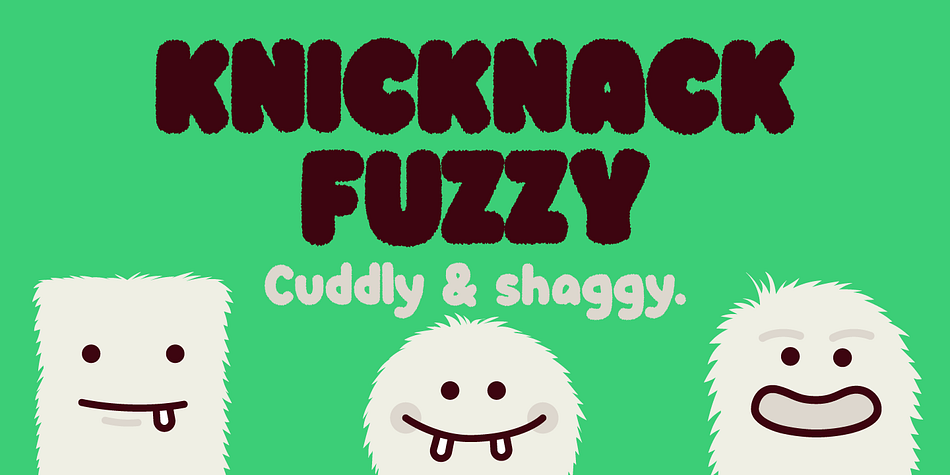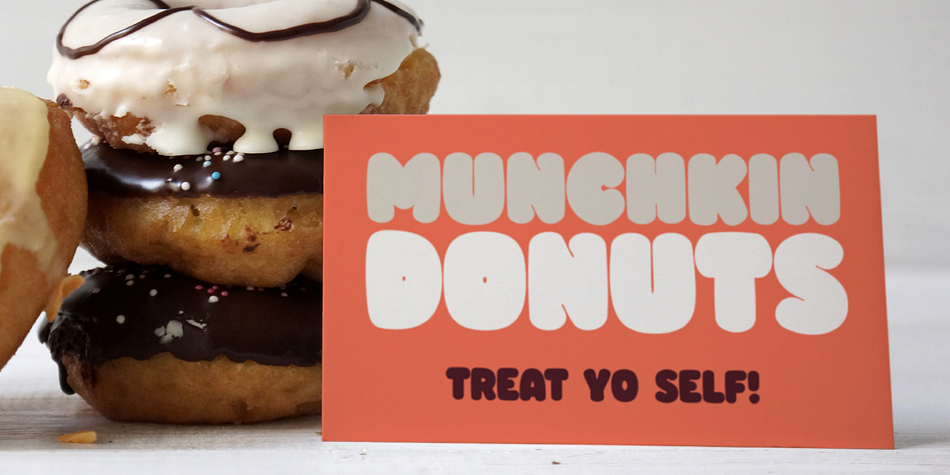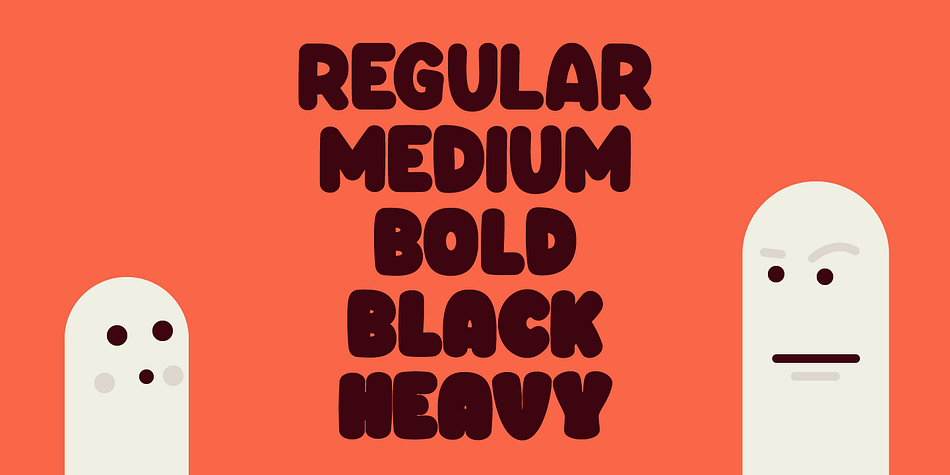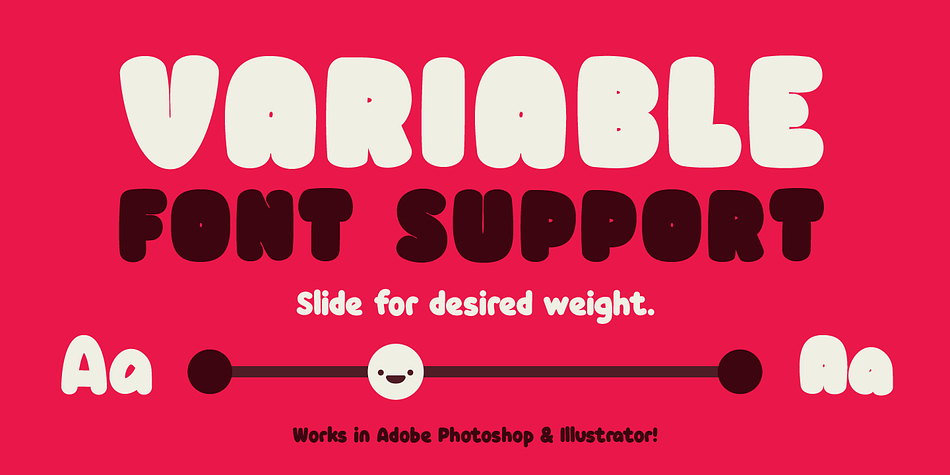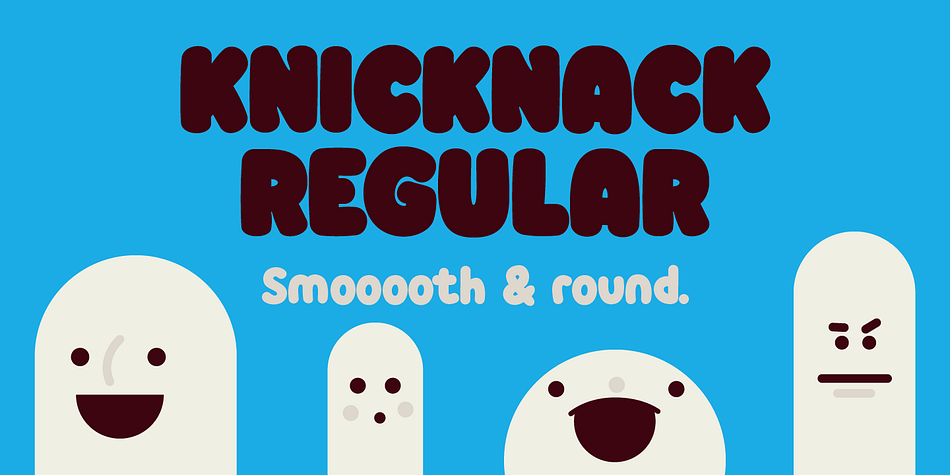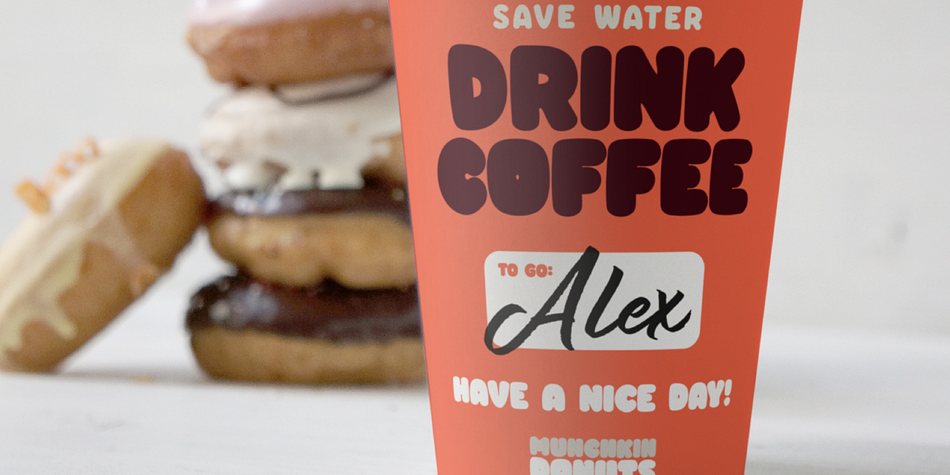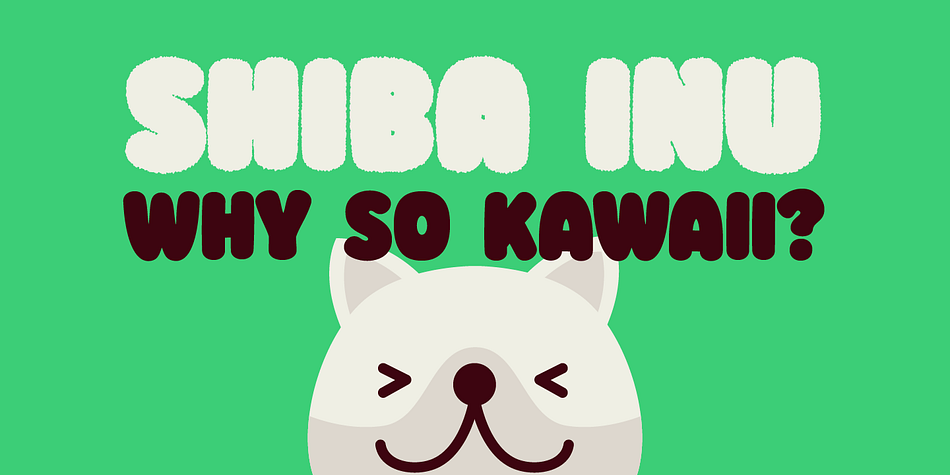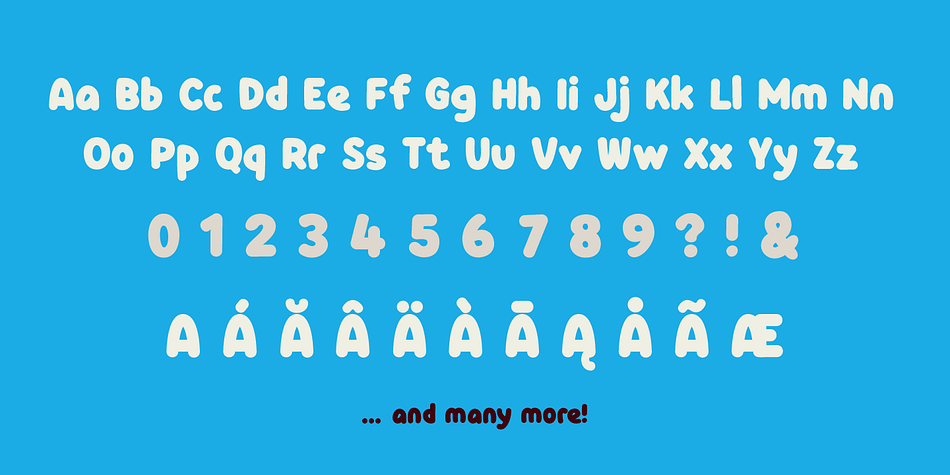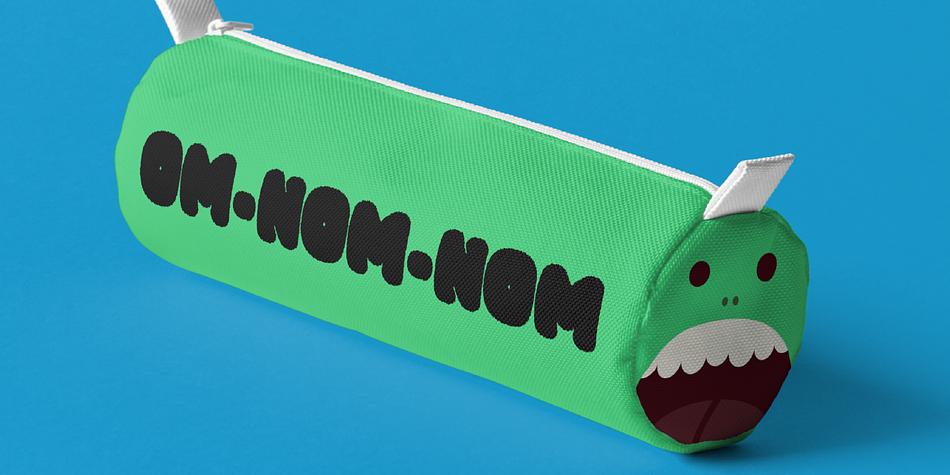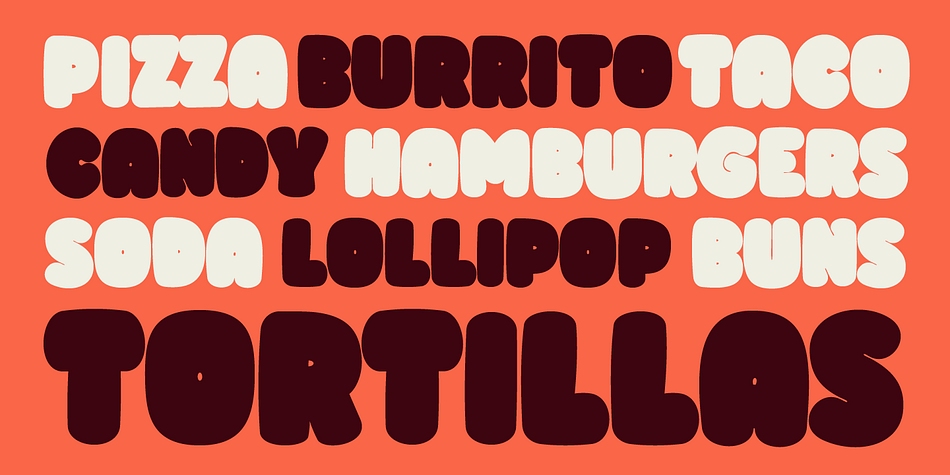
Designed by Daniel Feldt, Knicknack is a display sans font family. This typeface has eleven styles and was published by Great Scott.
It’s here! Lumbering down the grassy slope towards us, the lovable round sans serif of Knicknack. It’s warm, it’s smooth, it’s round and it’s fuzzy.
It’s perfect for display use, print, posters, branding, packaging or kids friendly apps and web!
Knicknack is a typeface that will put a smile on your face. It features 2 styles, regular and fuzzy and comes in at least 5 weights. At least?! Yes, at least. If you use the variable font file of Knicknack you can control the weight of the font with a slider. Works in Adobe Photoshop CC 2018 and Adobe Illustrator CC 2018.